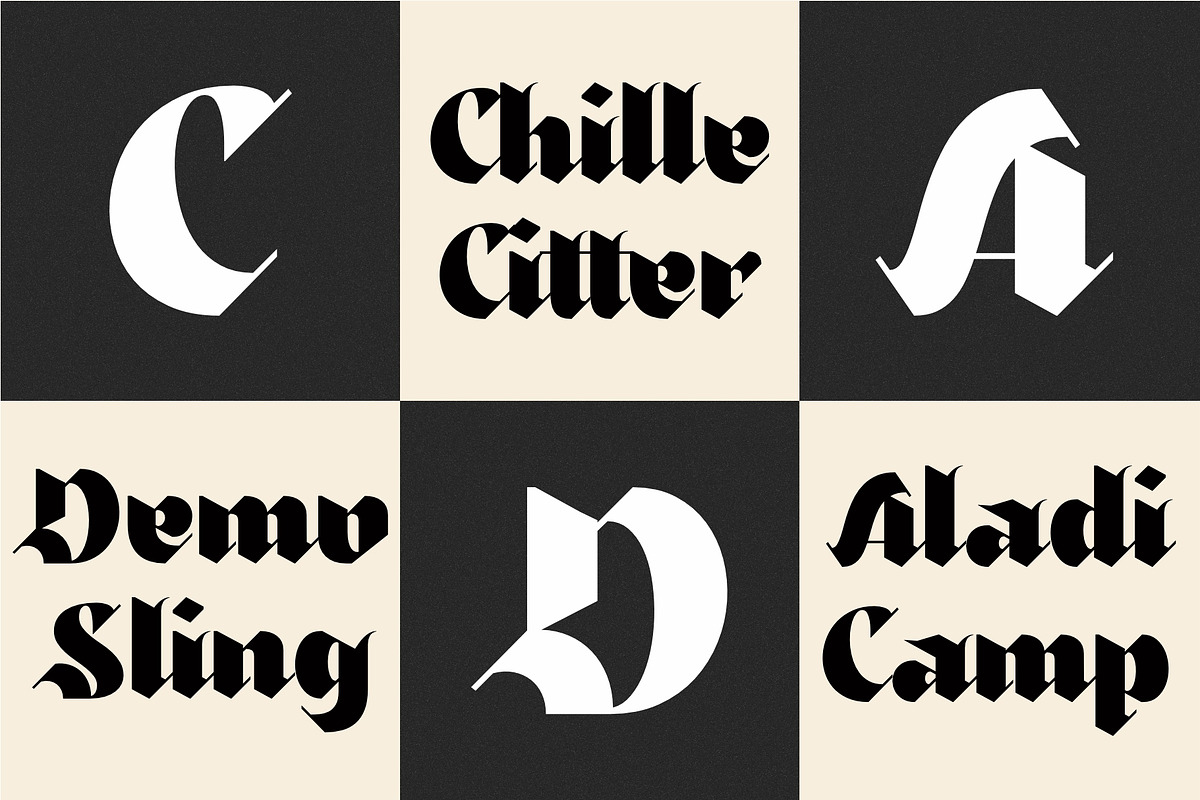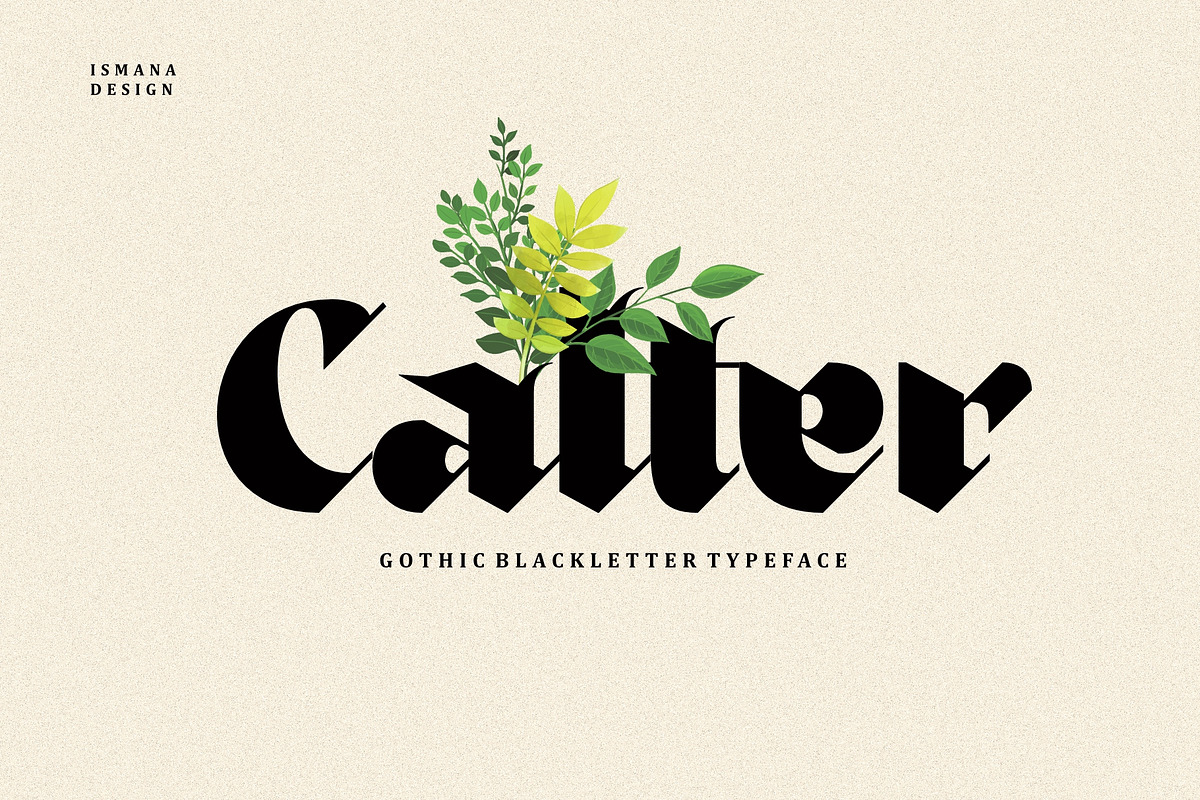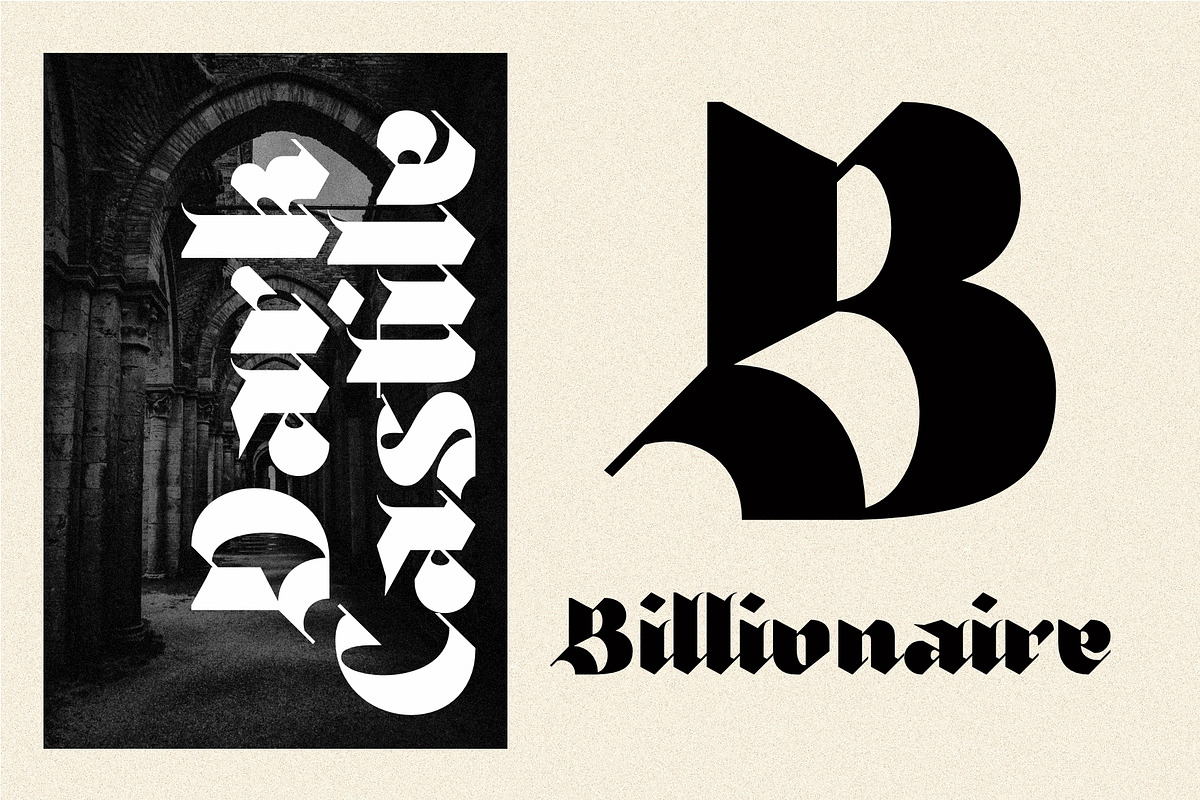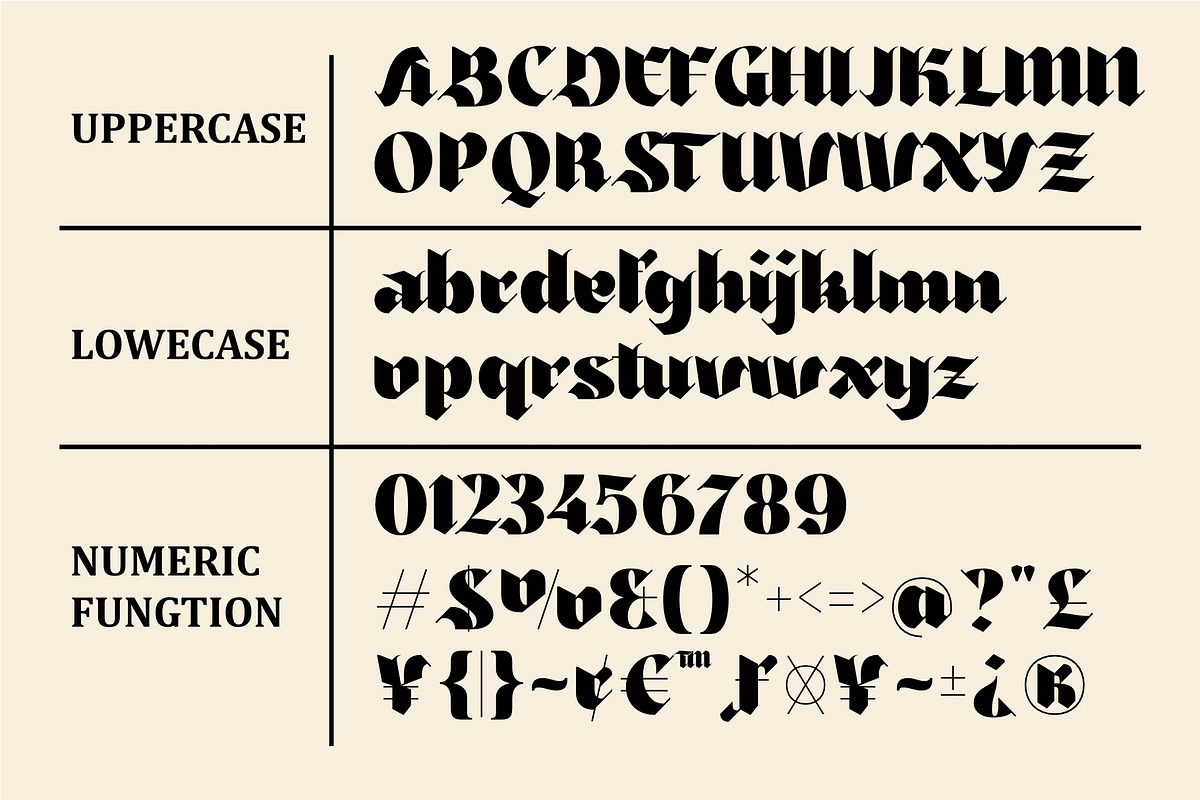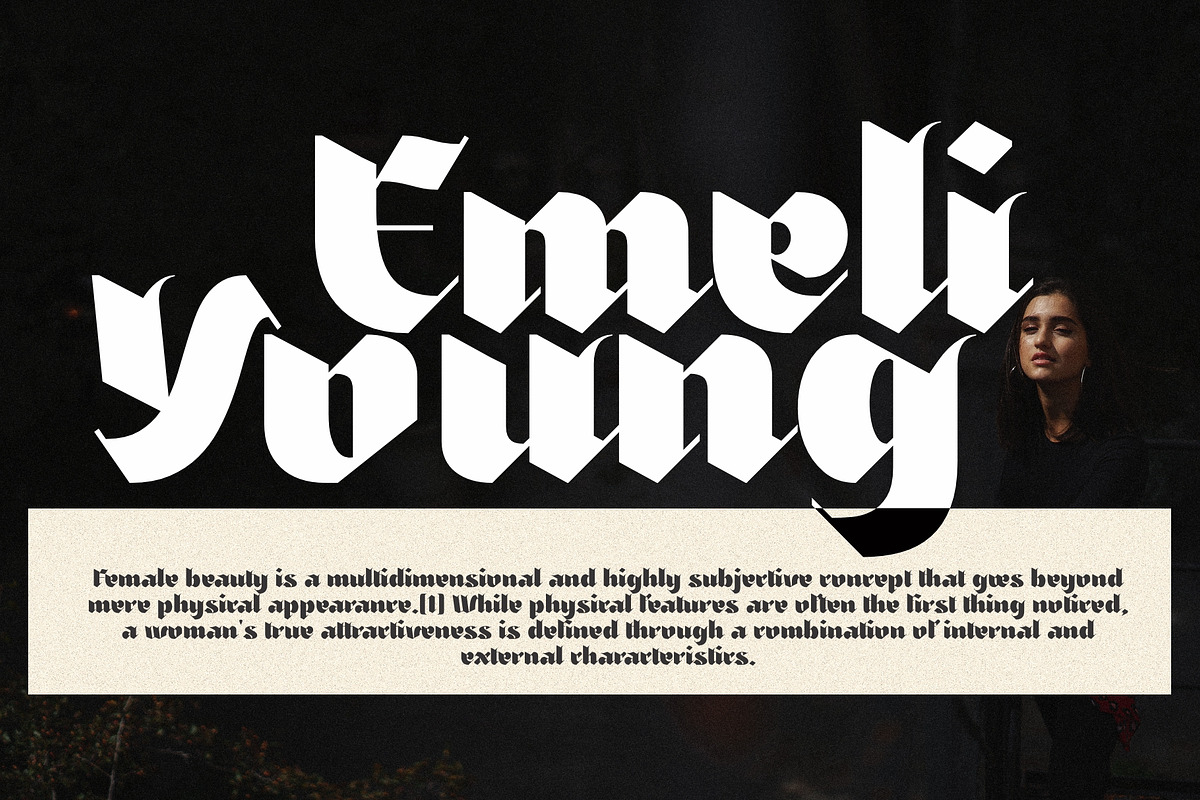
Calter
The Calter font is a modern serif display typeface, although the advertisement in the image classifies it as a Gothic blackletter typeface. It features bold stroke contrast and playful characters with few ligatures.